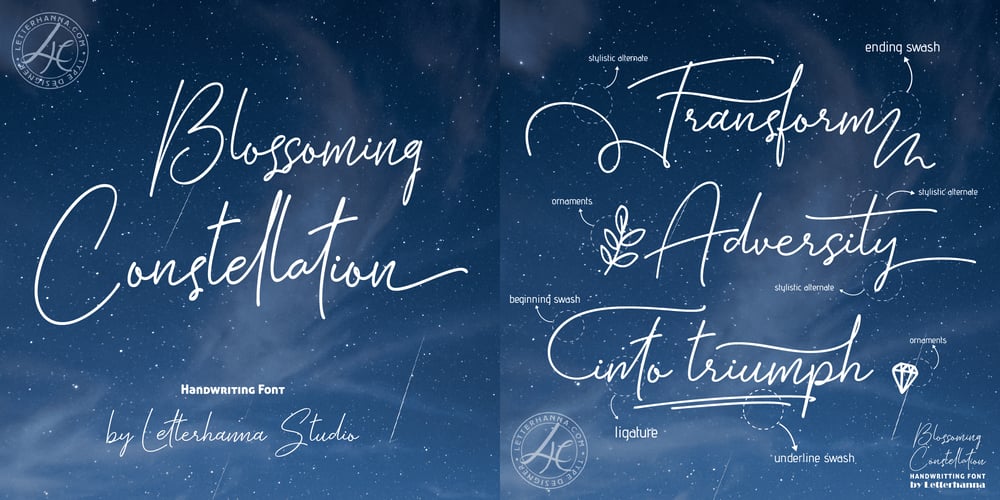
Blossoming Constellation Font Family was designed by Rinaldo Hasibuan and published by Letterhanna Studio. Blossoming Constellation contains 1 styles and family package options. Introducing “Blossoming Constellation,” a free-spirited handwritten font that gracefully weaves the celestial allure of constellations with the untamed beauty of blossoming flowers. Each letter in this font carries the essence of a wandering spirit, capturing the whimsy and wonder of the universe. With its flowing lines and delicate details, “Blossoming Constellation” invites you to express your creativity with the boundless freedom of a free spirit.